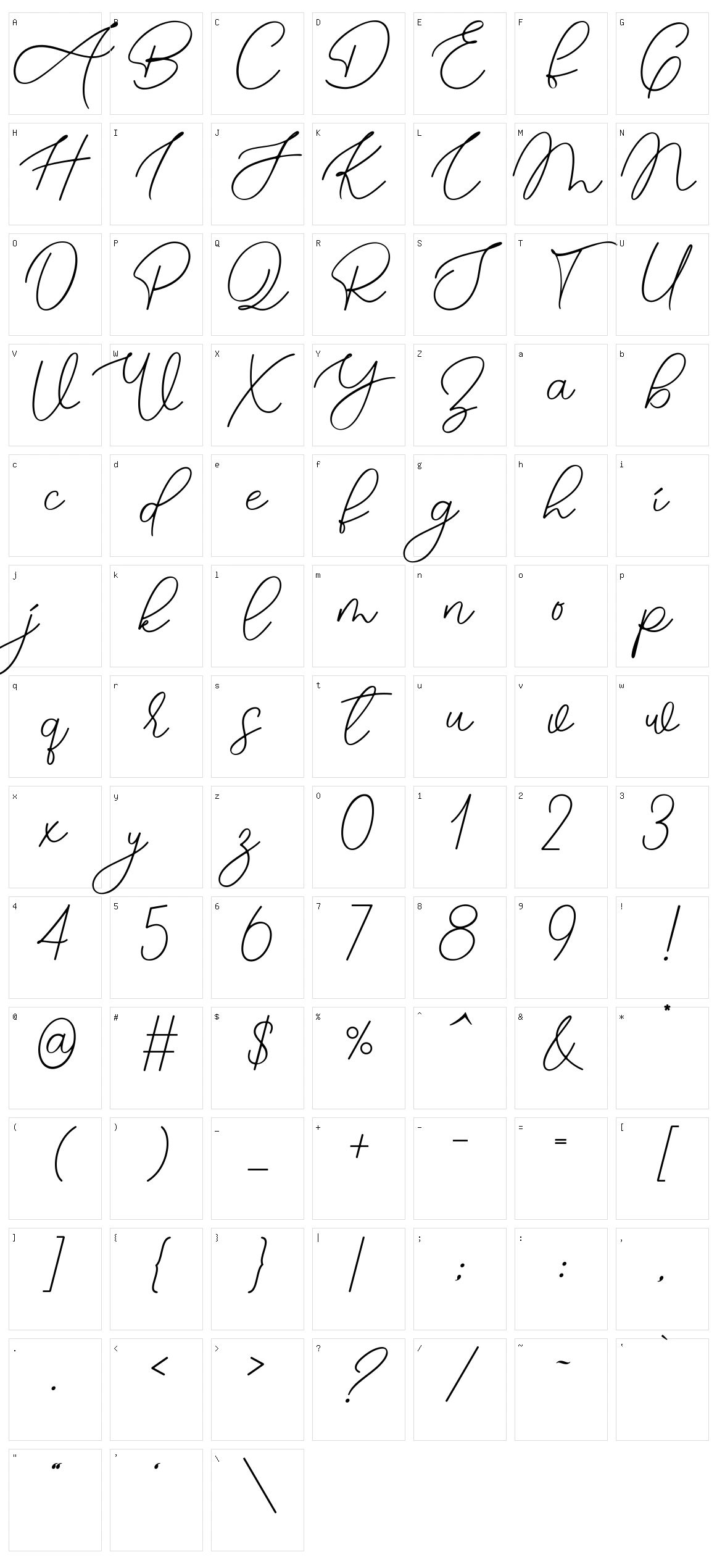
The free font Barlette is carefully designed by Four Lines, showcasing a thoughtful balance of creativity and usability and falls under the Script font style. When you download the ZIP file, it contains only 50.68 KB of font files, making it lightweight and quick to download. Please review the license details below to understand permitted usage and distribution rights. If license information is not available, we recommend using this font for personal projects only or contacting the author directly for commercial usage permissions.